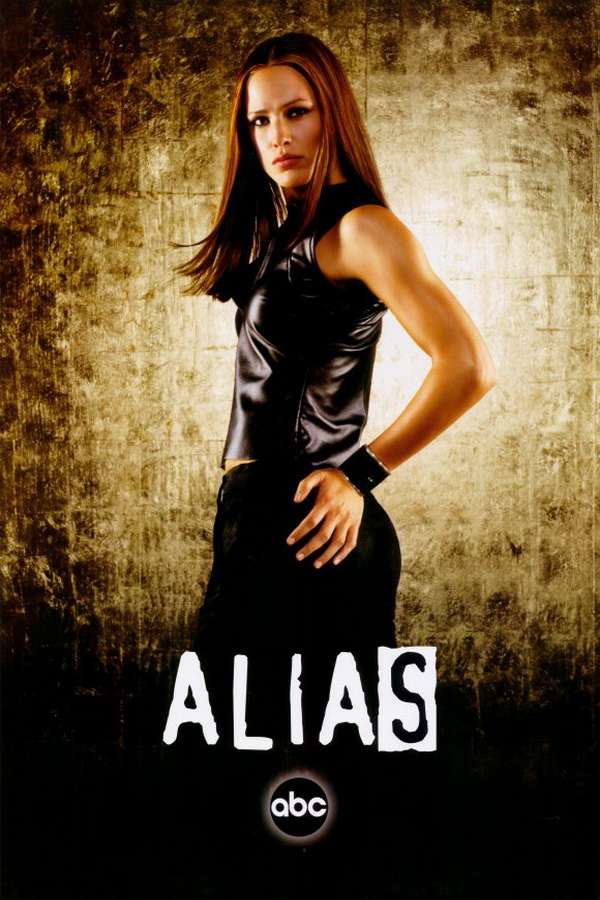
Alias Font
CrimeAlias is an American action-drama television series created by J. J. Abrams that aired on ABC for five seasons from 2001 to 2006. The show follows Sydney Bristow, a spy working for a fictional black ops organization known as SD-6.
The typography used for the title of the TV series closely resembles a free font called Alias. The font can be downloaded in both upper and lowercase letters and is available for free download in the Fonts Used Section.